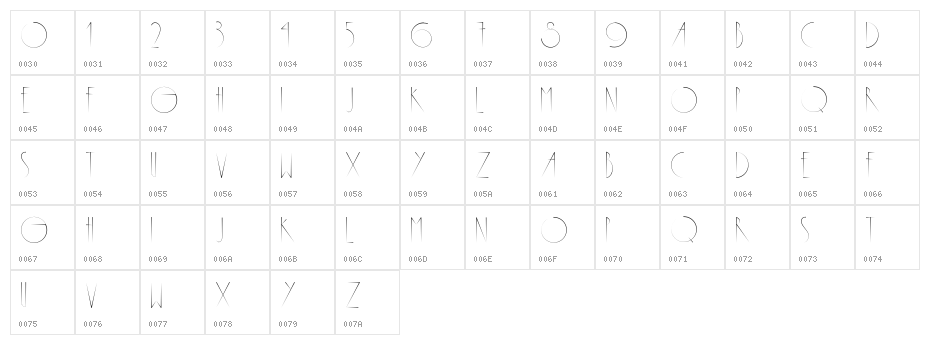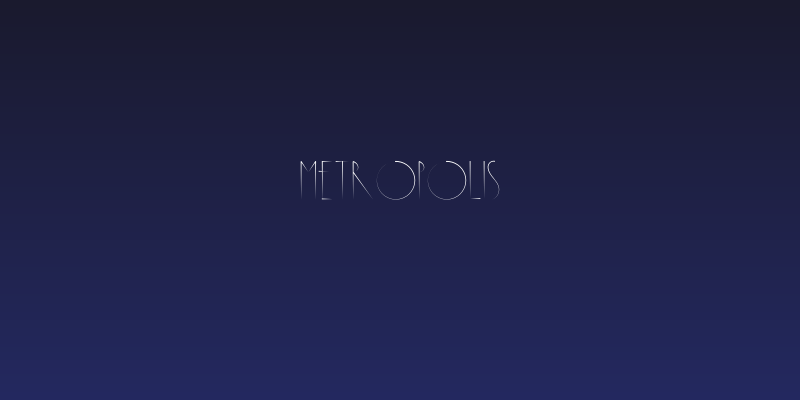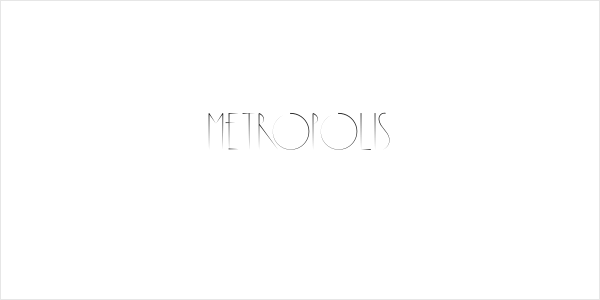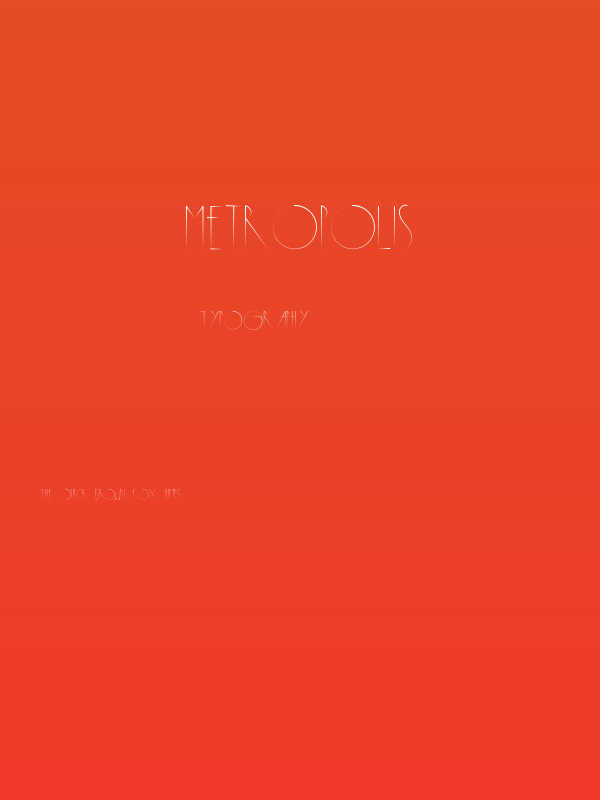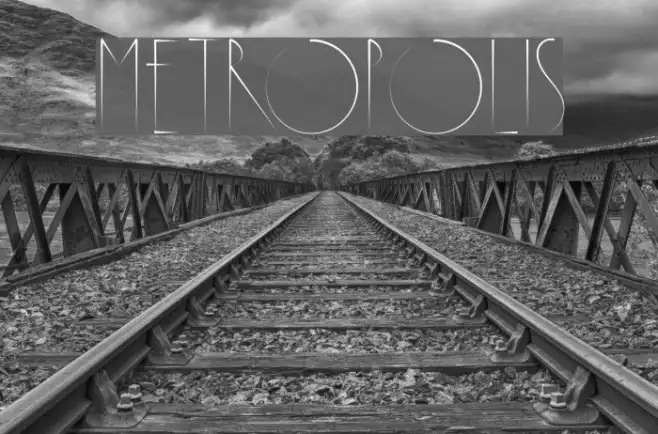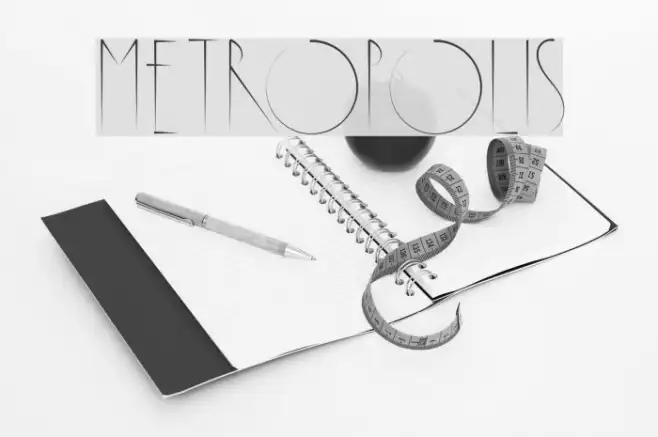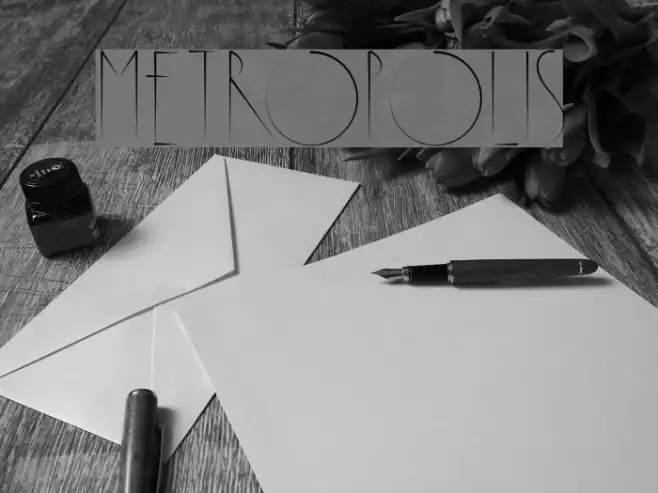
Metropolis Font
Metropolis Description
This font features a sleek, modern design with a distinct geometric influence. The characters are elongated and narrow, with sharp angles and clean lines that create a futuristic and sophisticated appearance. The uppercase letters are particularly striking, with a unique blend of curves and straight edges that give them a dynamic and elegant look. The numbers and special characters maintain this aesthetic, ensuring a cohesive style throughout. The font's minimalistic approach and high contrast between thick and thin strokes make it ideal for creating a bold visual impact.
| Overall Style | Modern, Futuristic |
| Proposed Projects | Ideal for modern branding, futuristic designs, posters, and editorial layouts. |